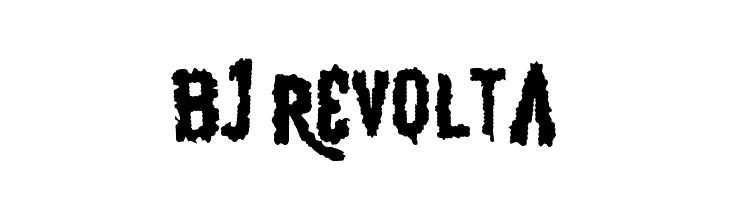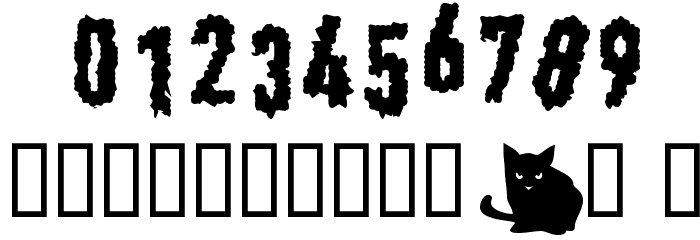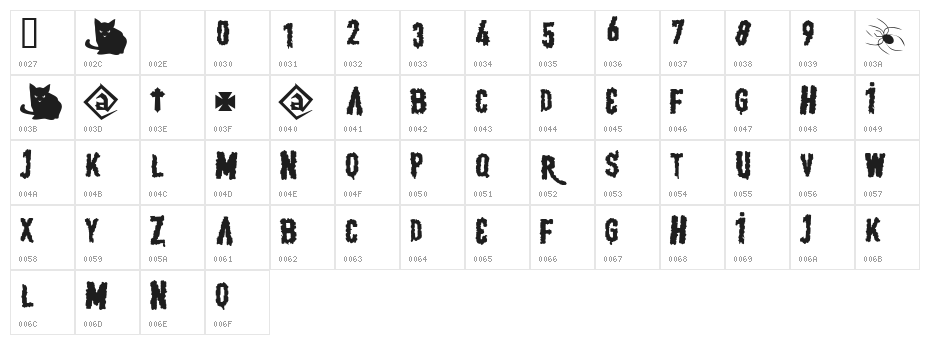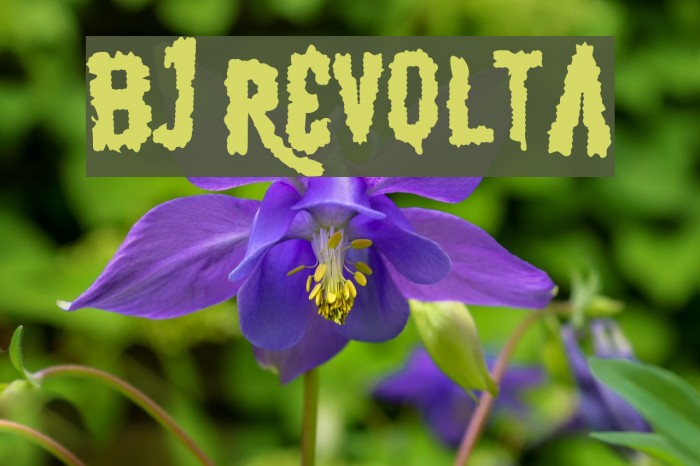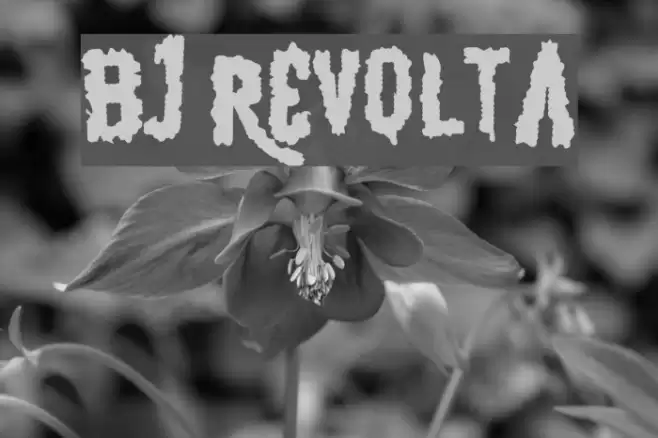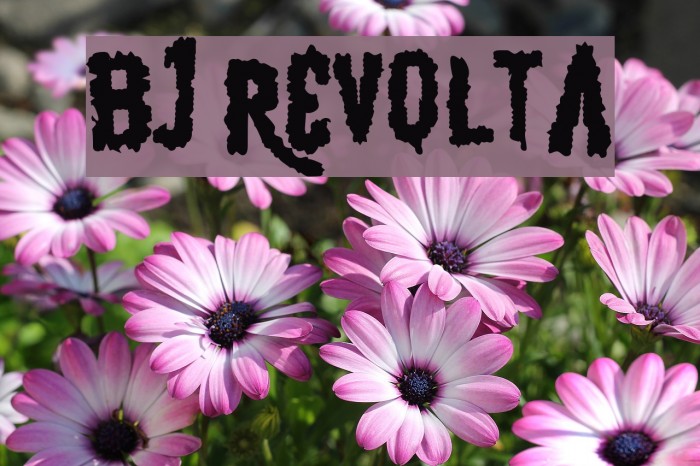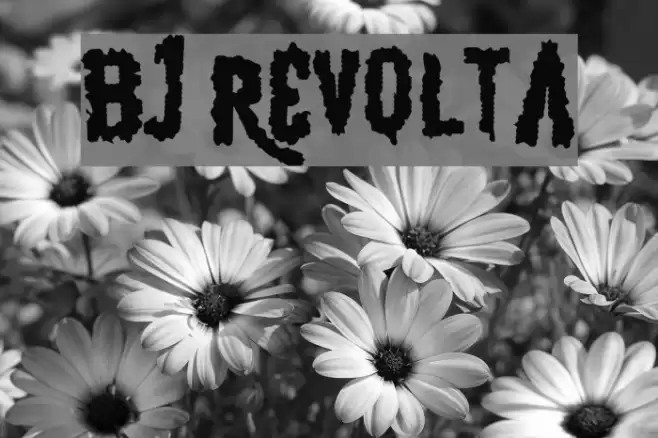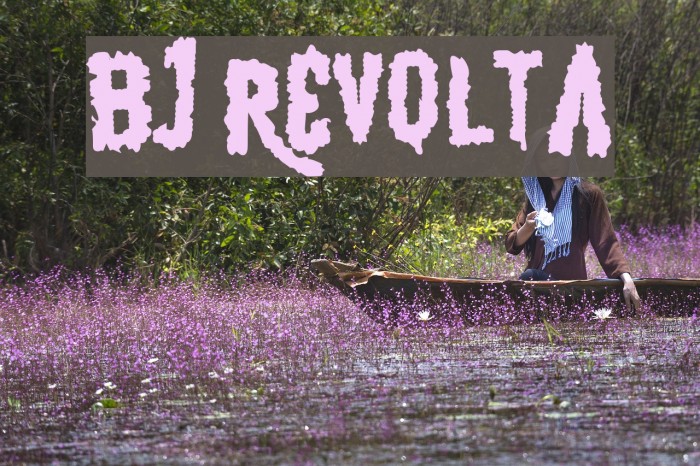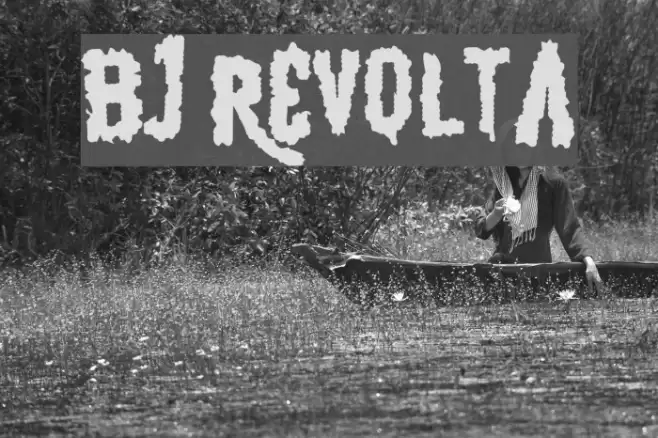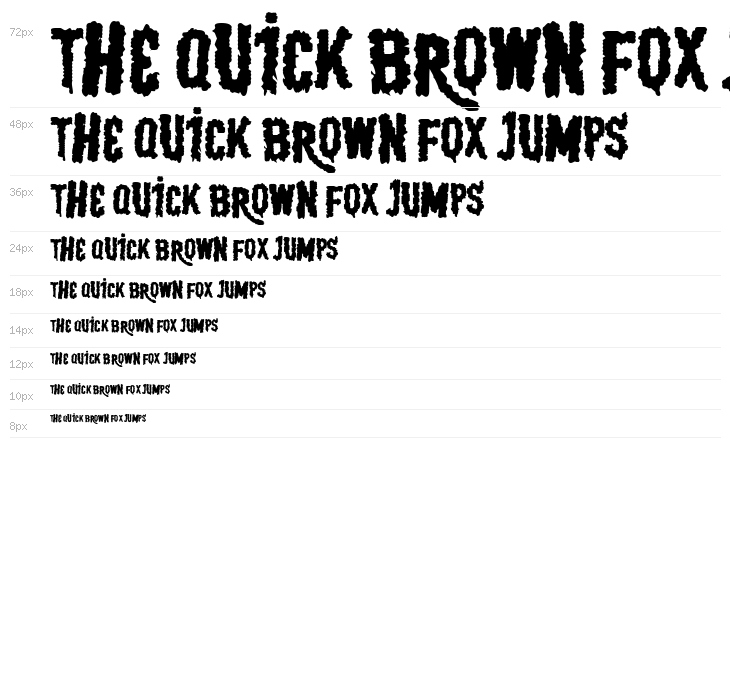
BJ REVOLTA Font
BJ REVOLTA Description
This font features a bold and rugged design, characterized by its jagged and distressed edges that give it a rebellious and edgy appearance. The uppercase and lowercase letters maintain a consistent style, with exaggerated curves and uneven strokes that create a sense of movement and energy. The numbers follow the same aesthetic, ensuring a cohesive look across all characters. The font's unique style makes it stand out, perfect for projects that require a bold statement. Its rough texture and irregular shapes evoke a sense of chaos and creativity, making it suitable for artistic and unconventional designs.
| Overall Style | Edgy, Rebellious, Artistic |
| Proposed Projects | Ideal for album covers, posters, streetwear branding, and edgy graphic designs. |